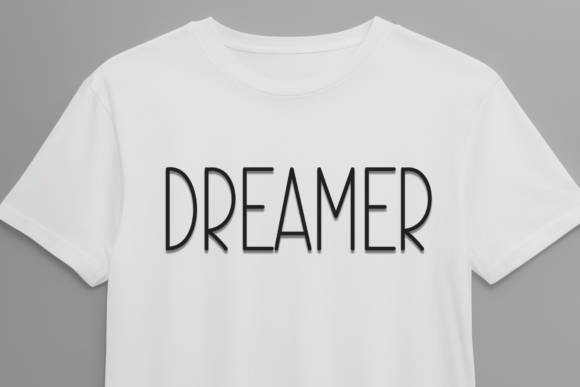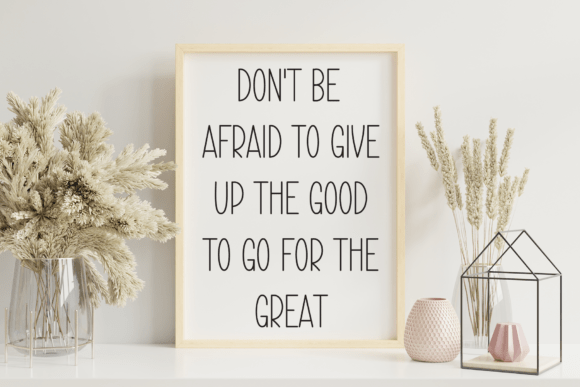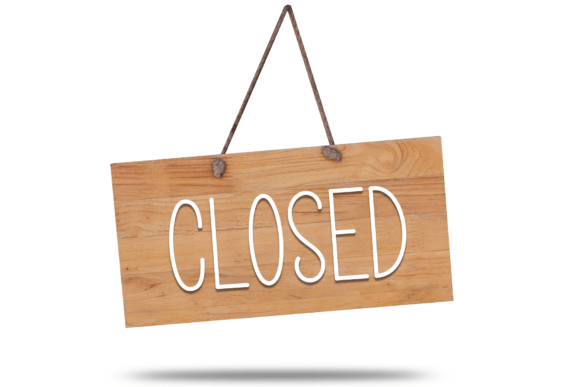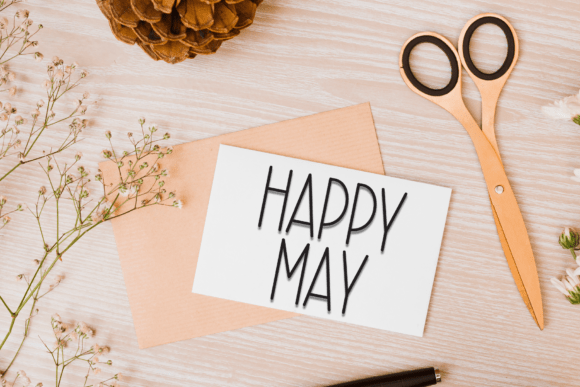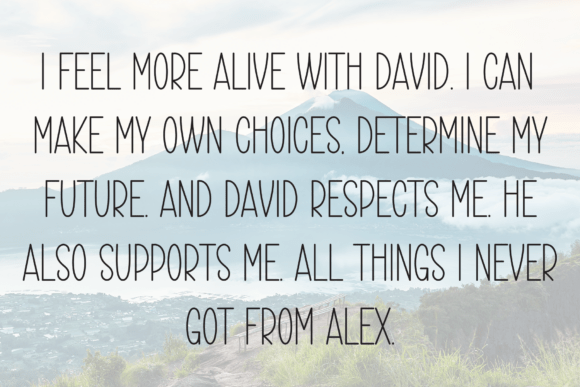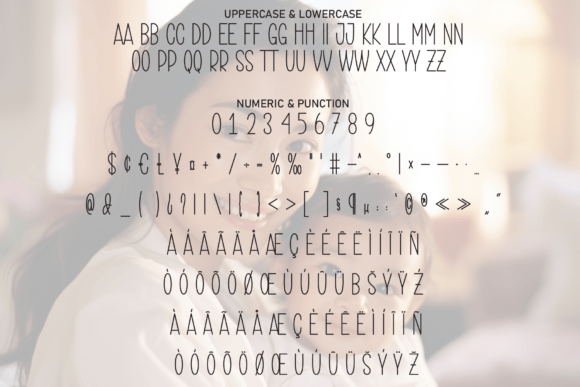
Introduction to Simple Mother Font
As a designer, have you ever stumbled upon that perfect font that instantly elevates your creative project? For me, it was the moment I discovered the Simple Mother Font. Its clean structure and approachable style immediately caught my attention, and I knew I had to dive in and explore more.
The Simple Mother Font is a gem for designers, offering a perfect blend of readability and charm. With its balanced letterforms, every message feels genuine and inviting, making it an ideal choice for branding, headlines, and everyday designs. Whether you’re working on a high-quality design resource or a personal project, this font is sure to bring warmth and clarity to your work.
Key Features of Simple Mother Font
- High-quality font design with a clean and elegant aesthetic
- Includes a comprehensive set of glyphs, including Latin and Cyrillic characters, for a wide range of language support
Honest Review: Simple Mother Font
As a designer, I’m always on the lookout for high-quality design resources to elevate my creative projects. Recently, I had the chance to experiment with the Simple Mother Font, and I’m excited to share my honest review.
- Simple Mother Font offers a clean and minimalist aesthetic that’s perfect for modern designs.
- The font selection is relatively limited, with only a few styles to choose from.
- Some users may find the font too simple or lacking in character, depending on their design preferences.
Simple Mother Font
The Simple Mother Font is a versatile and high-quality design resource ideal for creative projects. With its transparent background, this font is perfect for designers who want to add a touch of elegance to their work.